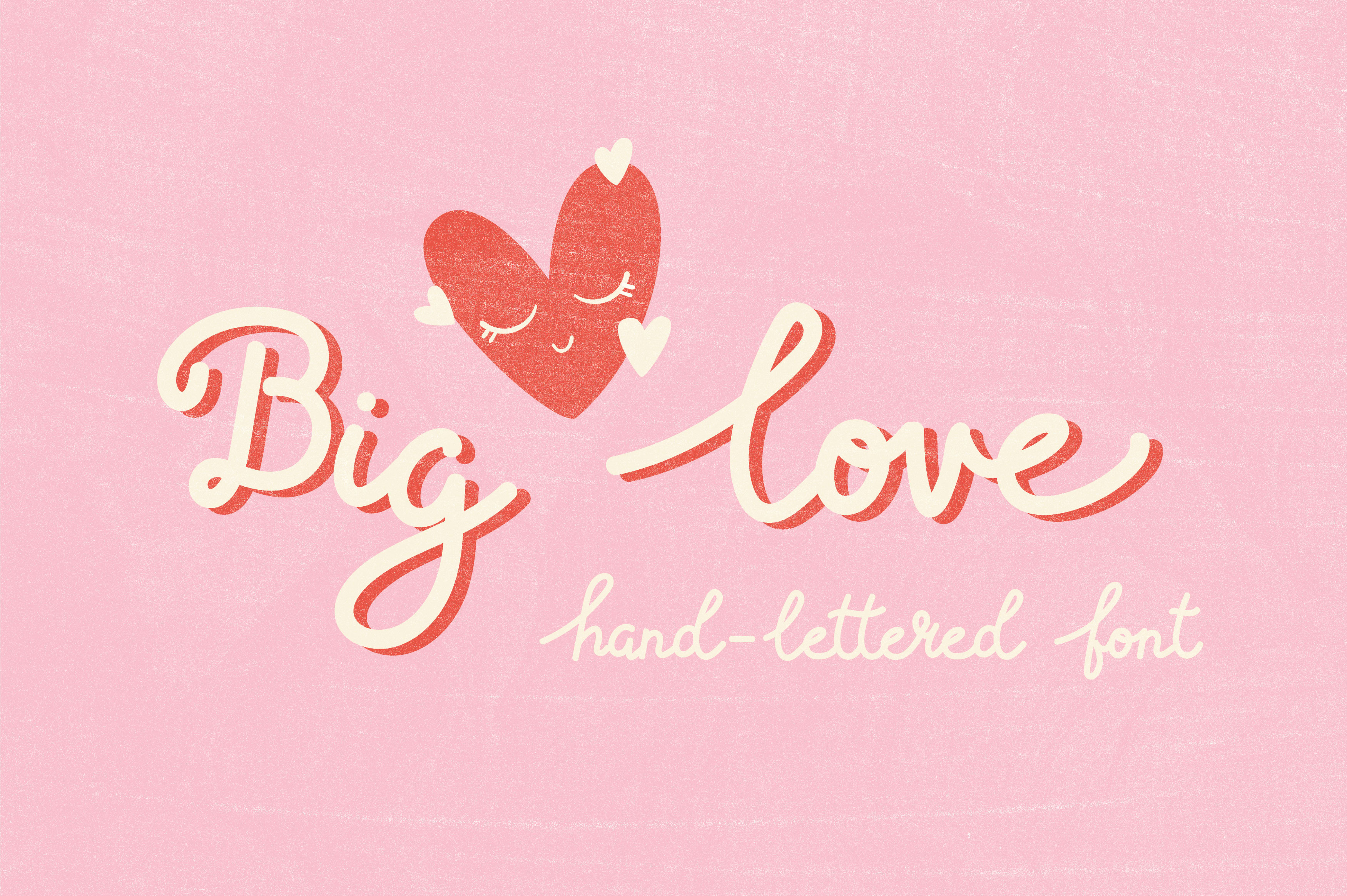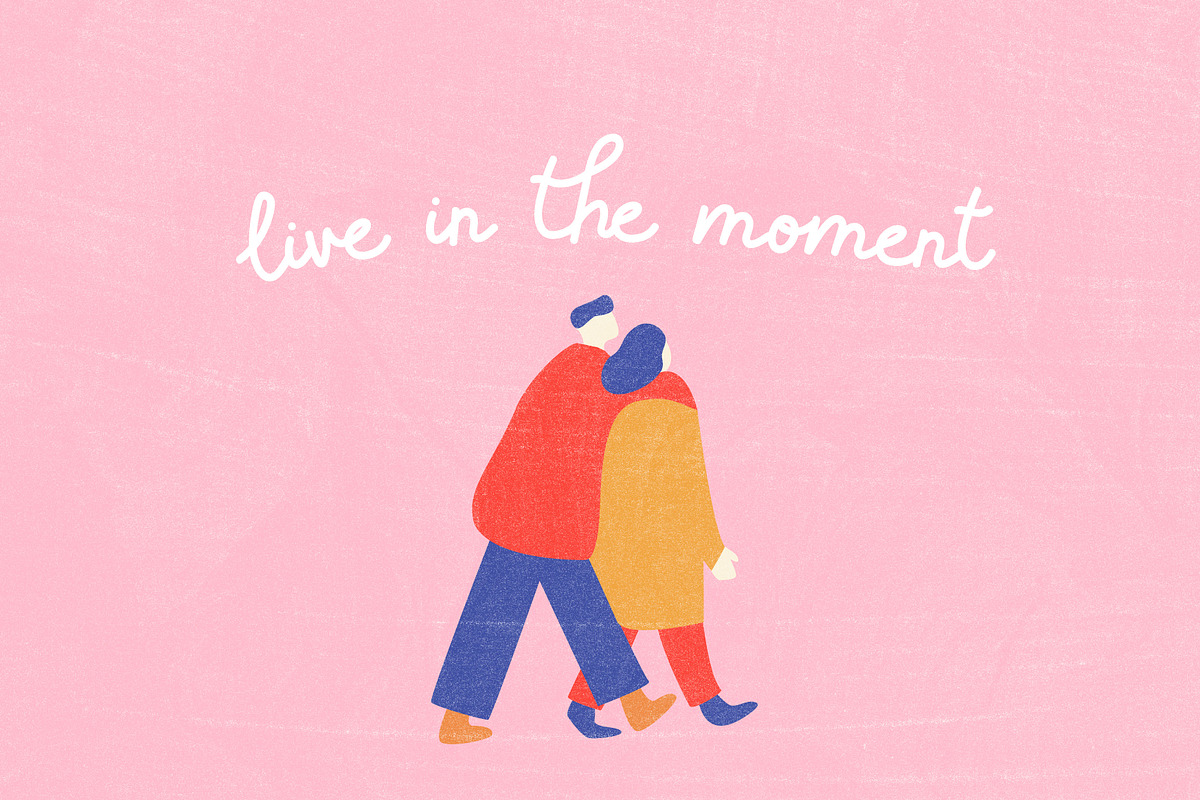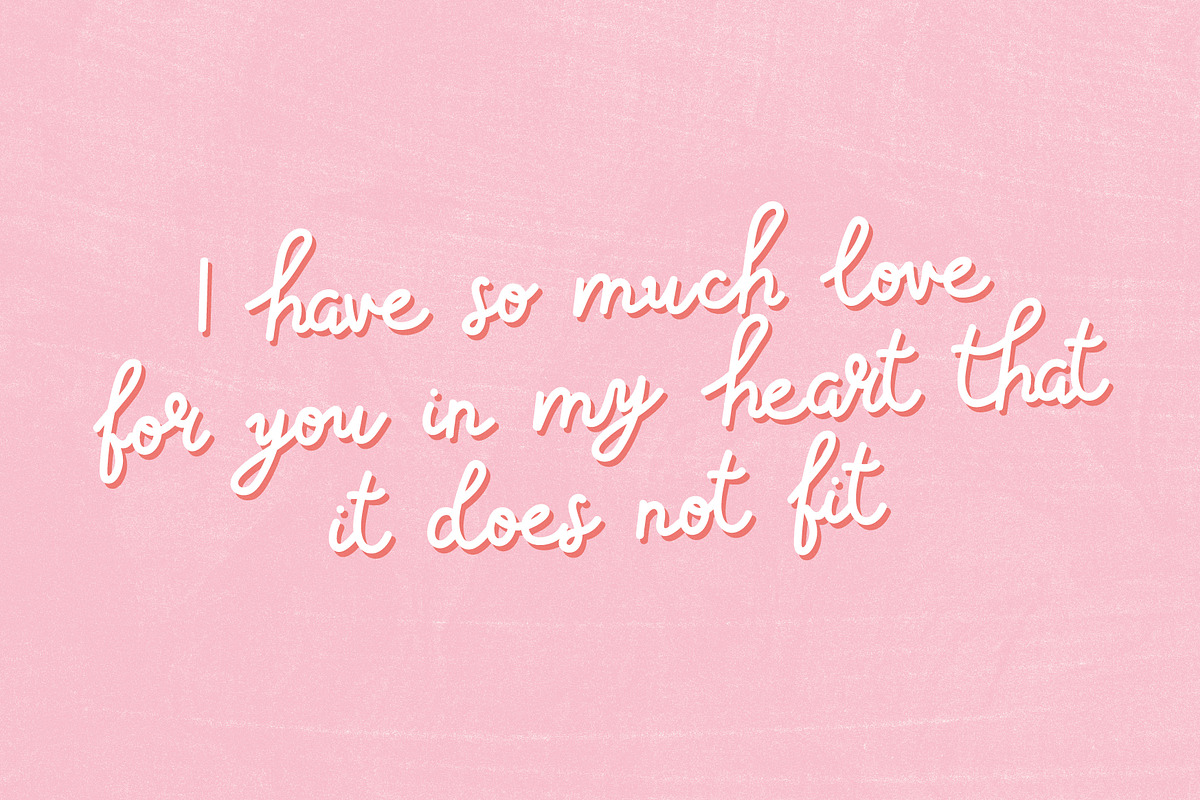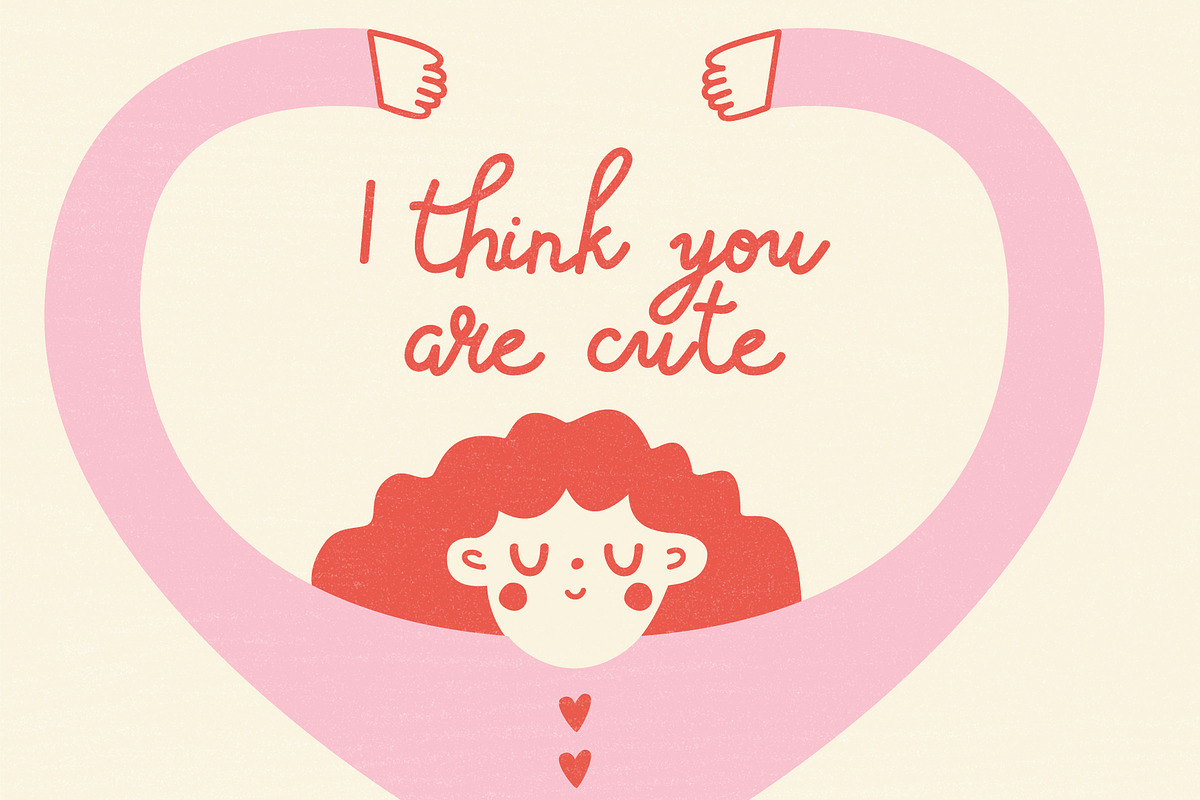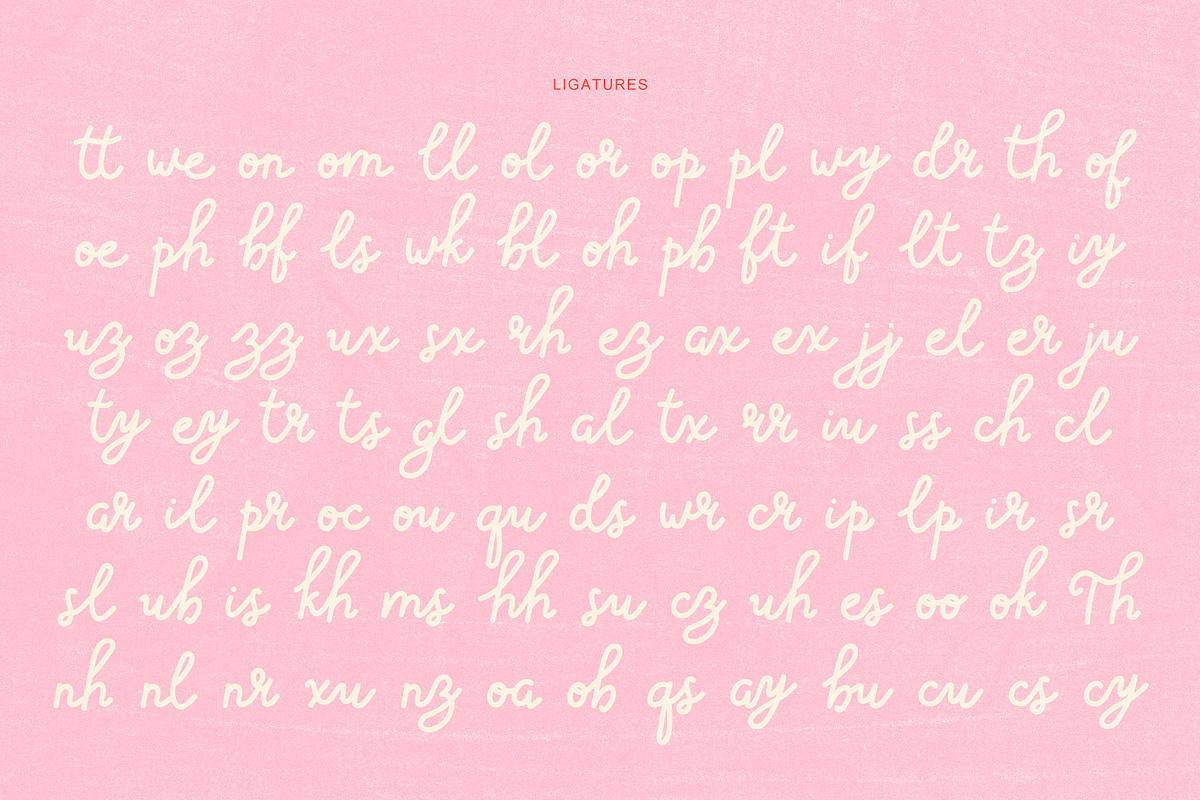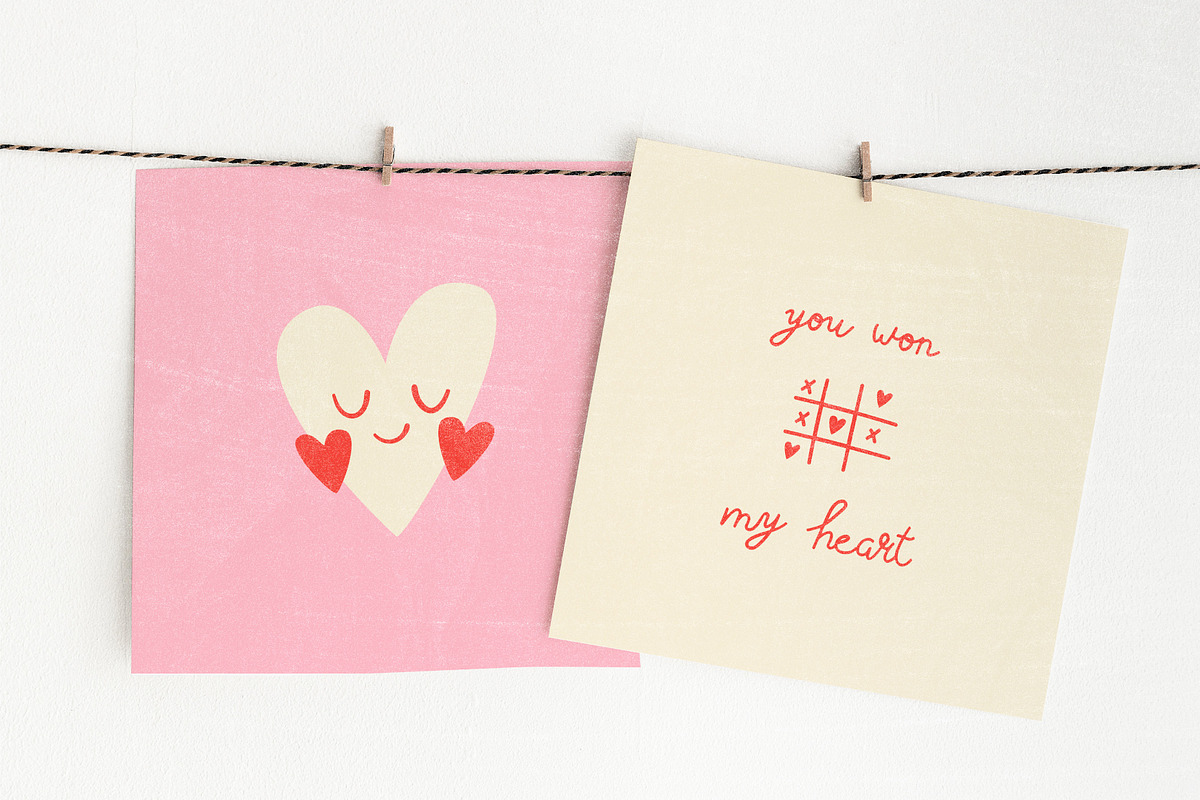
Big love | Hand-lettered font
Use for logos, quotes, invitations, greeting cards, journals, posters, baby clothing and more. This font will make your design looks great and fun!